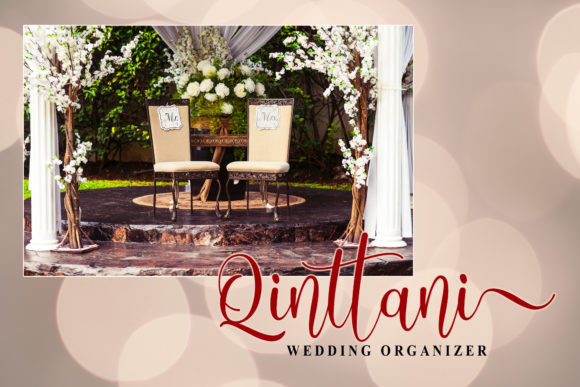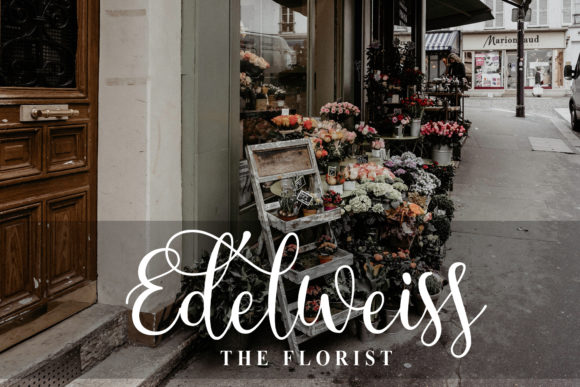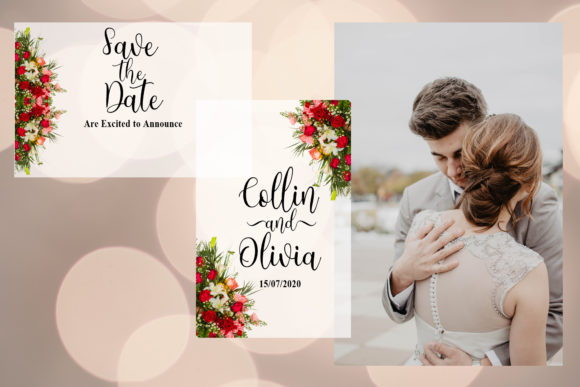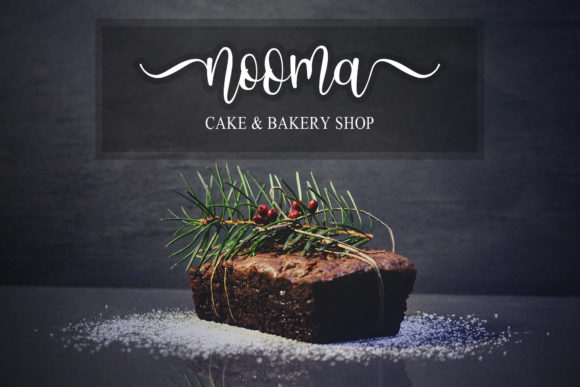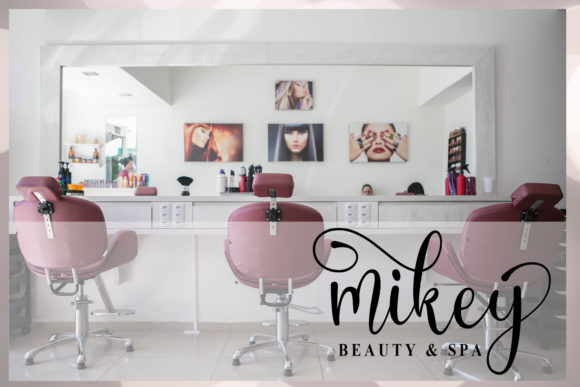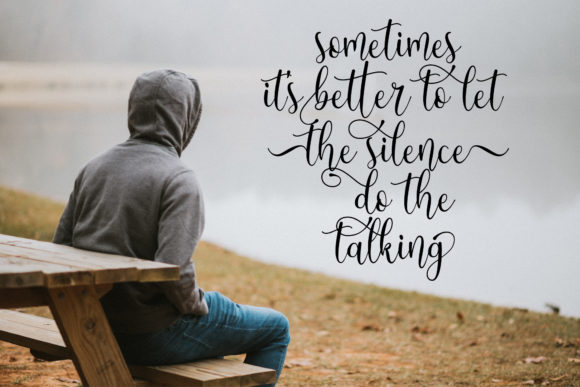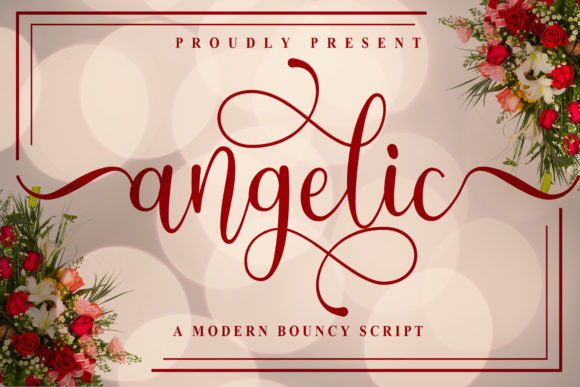
Introducing Angelic Font: Elevate Your Design with a Touch of Elegance
In the world of typography, few fonts manage to capture the essence of classic elegance while still offering a unique twist. Angelic Font is one such gem that brings a blend of traditional typography and modern flair to your design projects. Whether you’re a designer looking to enhance your Instagram feed or a crafty DIY enthusiast seeking the perfect calligraphy script, Angelic Font is poised to transform your creative ideas into stunning works of art.
The Inspiration Behind Angelic Font
Angelic Font draws its inspiration from the timeless beauty of classic typography. The creators aimed to craft a font that not only pays homage to the traditional scripts of the past but also infuses them with a contemporary charm. The result is a handwritten font that exudes elegance, sophistication, and a hint of playfulness.
What Makes Angelic Font Stand Out
- Unique Style: Angelic Font brings its own unique style to the table, setting it apart from more generic fonts. Its distinctive flair makes it perfect for projects where you want to make a statement.
- Versatility: This font is incredibly versatile, suitable for a wide range of design projects. From Instagram posts and stories to DIY crafts and professional branding, Angelic Font adapts seamlessly.
- Handwritten Charm: The handwritten nature of Angelic Font adds a personal touch to any design. It’s perfect for creating a warm and inviting aesthetic that resonates with your audience.
Using Angelic Font for Instagram and Social Media
In the visually-driven world of Instagram, standing out is key. Angelic Font can help elevate your social media presence with its stylish and eye-catching lettering. Here are a few ways you can use Angelic Font to enhance your Instagram feed:
- Captions and Quotes: Add a touch of elegance to your captions and quotes with Angelic Font. It’s a great way to make your content more engaging and shareable.
- Story Highlights: Use Angelic Font to create custom story highlights covers. This adds a cohesive and professional look to your profile.
- Branding: If you’re a business or influencer, consider using Angelic Font in your Instagram bio or posts to reinforce your brand identity.
Angelic Font in DIY Projects
For crafters and DIY enthusiasts, Angelic Font opens up a world of creative possibilities. Here are some ideas for incorporating this beautiful font into your projects:
- Calligraphy: Use Angelic Font as a guide for learning calligraphy. Its elegant strokes and letters make it perfect for practicing and creating beautiful calligraphy pieces.
- Handmade Cards: Add a personal touch to your handmade cards with Angelic Font. It’s ideal for writing out messages, titles, or even decorative borders.
- Sign Making: Whether you’re creating signs for a party, a business, or home decor, Angelic Font can help you achieve a professional and stylish look.
Tips for Maximizing the Impact of Angelic Font
To get the most out of Angelic Font, consider the following tips:
- Pair with Complementary Fonts: Experiment with pairing Angelic Font with other fonts to create visually appealing combinations. A contrasting font can help highlight the unique qualities of Angelic.
- Play with Colors: Don’t be afraid to experiment with different colors. Angelic Font looks stunning in a variety of colors, from soft pastels to rich jewel tones.
- Adjust and Customize: Depending on your project, you might want to adjust the size, spacing, or style of Angelic Font. Don’t hesitate to get creative and make it your own.
| Font Name | Angelic Font |
| Author | Doehantz Studio |
Angelic Font is more than just a font; it’s a tool for transforming your creative ideas into beautiful works of art. With its classic inspiration and modern twist, it offers the perfect blend of elegance and uniqueness. Whether you’re a designer, a DIY enthusiast, or simply someone who loves beautiful typography, Angelic Font is sure to become a favorite in your creative arsenal. So why wait? Dive into the world of Angelic Font and watch your designs soar to new heights of creativity and sophistication.